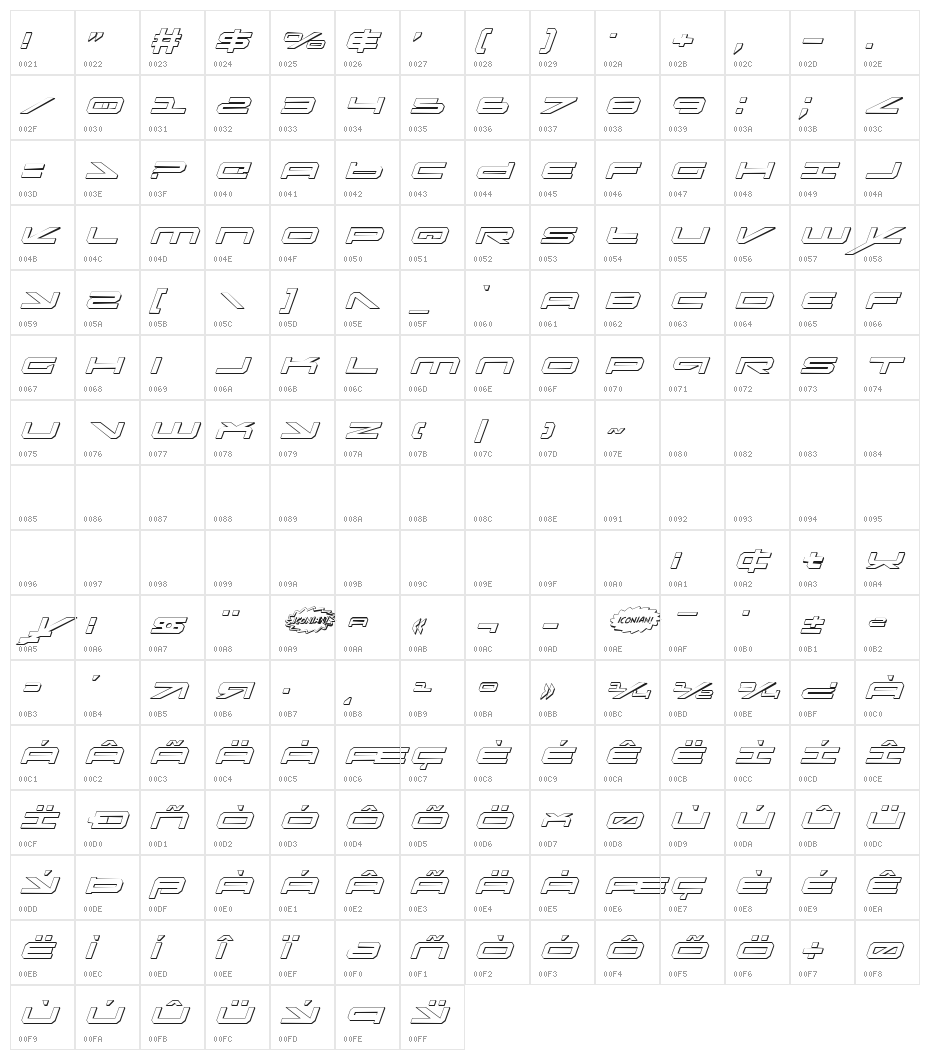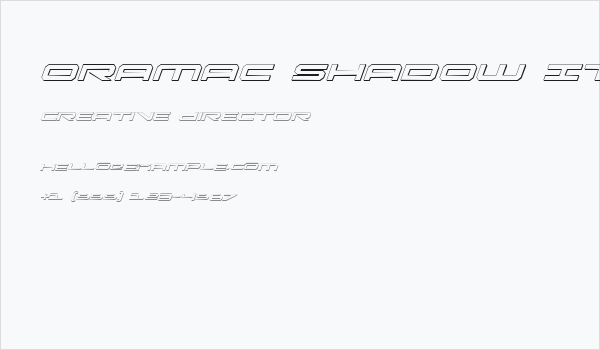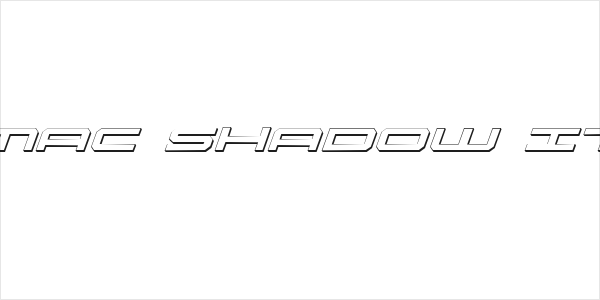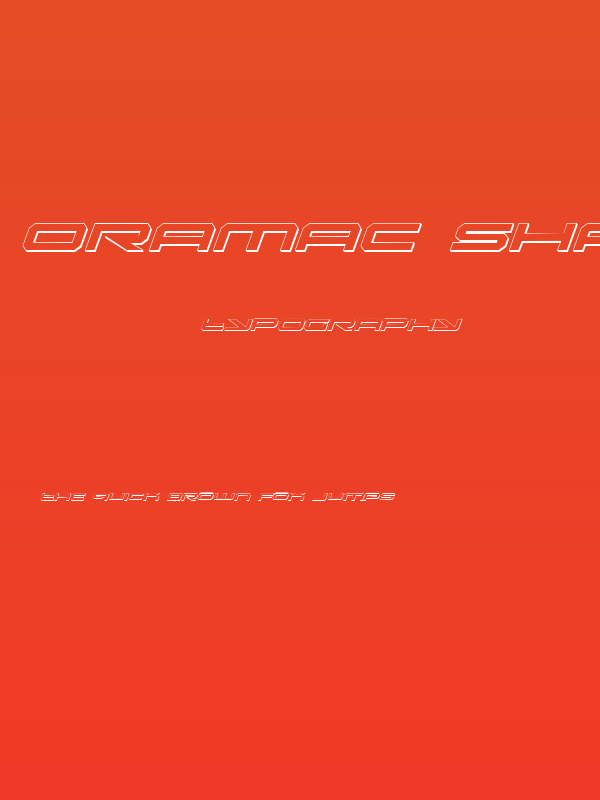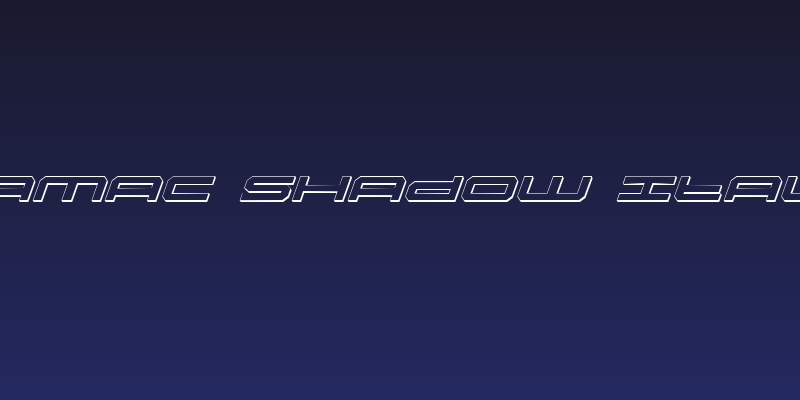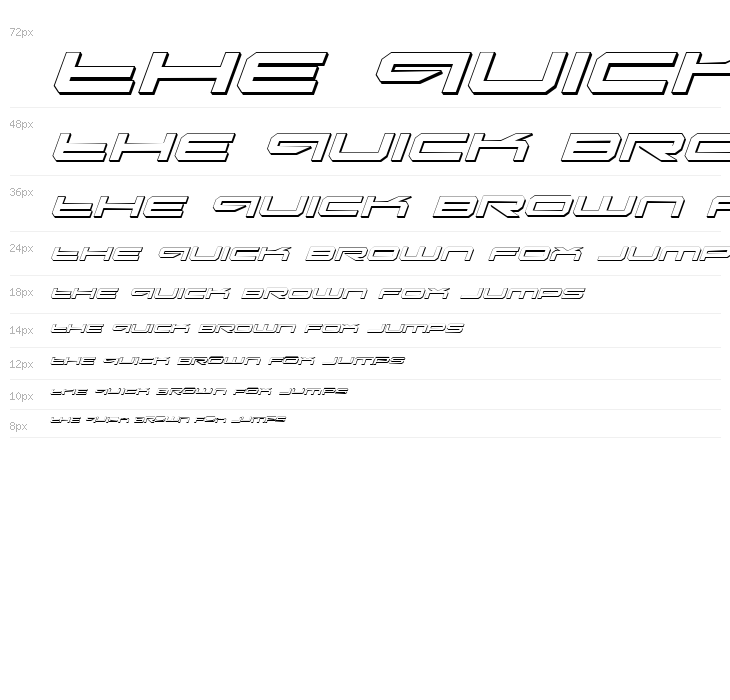
Oramac Shadow Italic Font
Oramac Shadow Italic Description
This font features a futuristic and dynamic design with a distinct shadow effect that gives it a three-dimensional appearance. The italicized style adds a sense of motion and speed, making it ideal for projects that require a modern and energetic look. The characters are outlined, providing a unique visual impact that stands out. The uppercase and lowercase letters maintain a consistent style, with sharp angles and clean lines. The numerals and special characters are equally stylized, ensuring a cohesive appearance across all text elements.
| Proposed Projects | Ideal for sci-fi themed designs, video game titles, technology branding, and dynamic posters. |